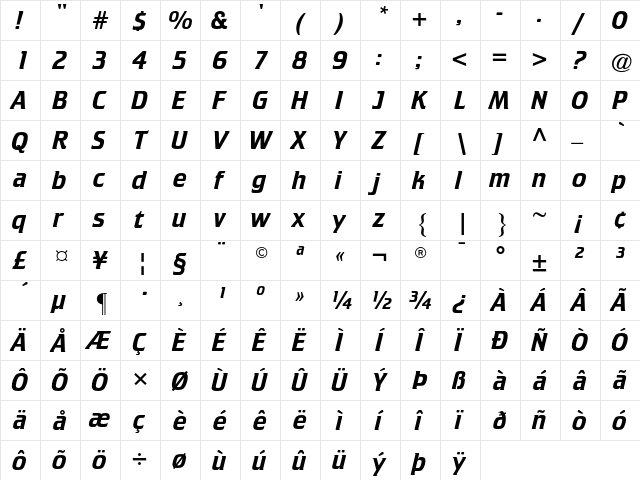
Crillee AT Italic Regular
Design Context for Crillee AT Italic Typeface
Crillee AT Italic is a composed and adaptable typeface that performs quietly and consistently across a wide range of design contexts. The slanted form adds forward momentum and visual energy.
Pro Tip: Use Crillee AT Italic for emphasis, pull quotes, and subheadings where its slanted energy can add rhythm to the layout.